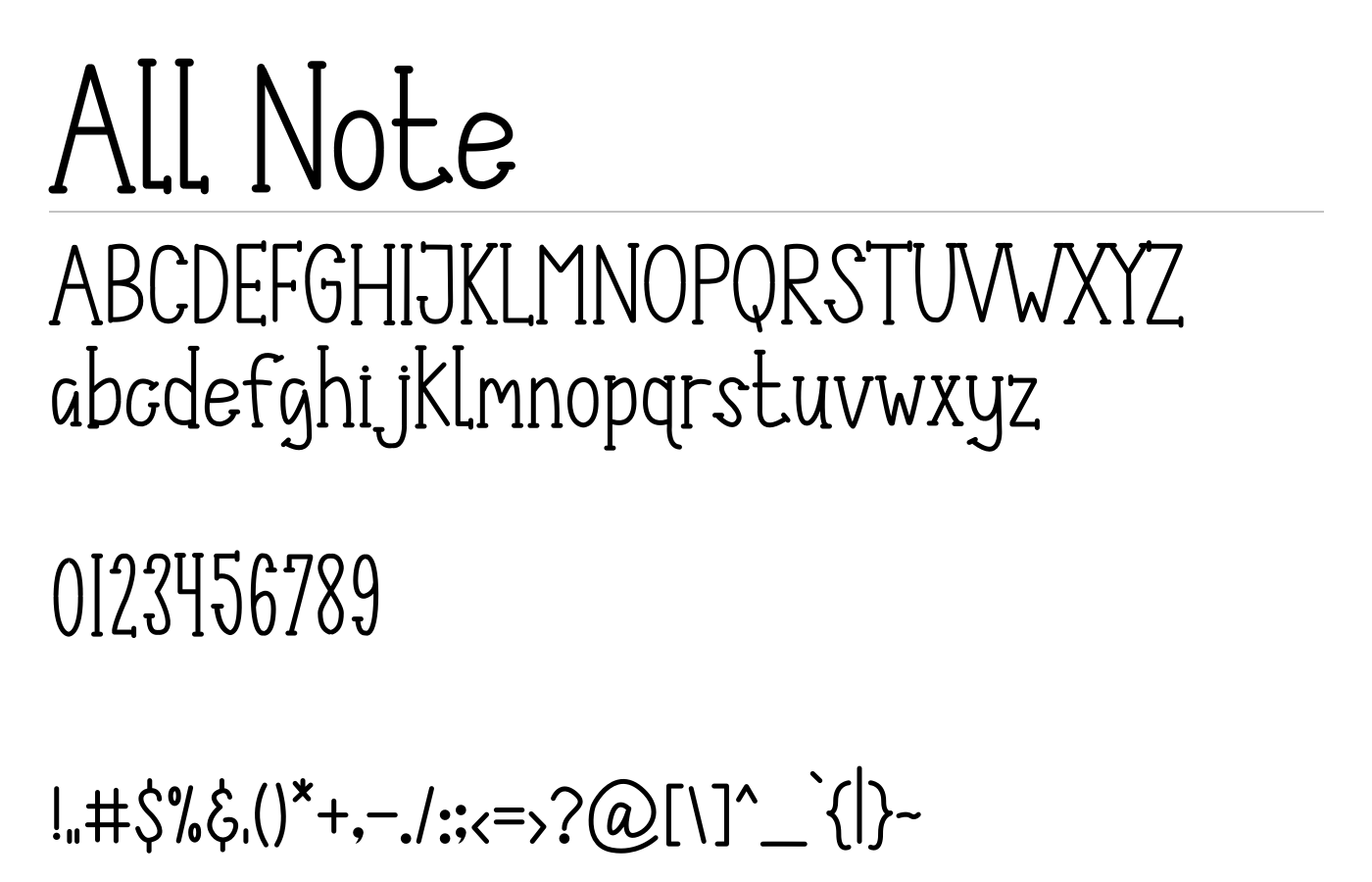
All Note is a playful and quirky serif font characterized by its narrow letterforms and unique rounded terminals, giving it a handwritten, whimsical charm. Its tall x-height and light stroke weight make it friendly and approachable, perfect for creative projects, children’s books, or casual branding that seeks a fun yet tidy appearance. This font works well in headlines and short texts where personality and legibility go hand in hand.
All Note Font